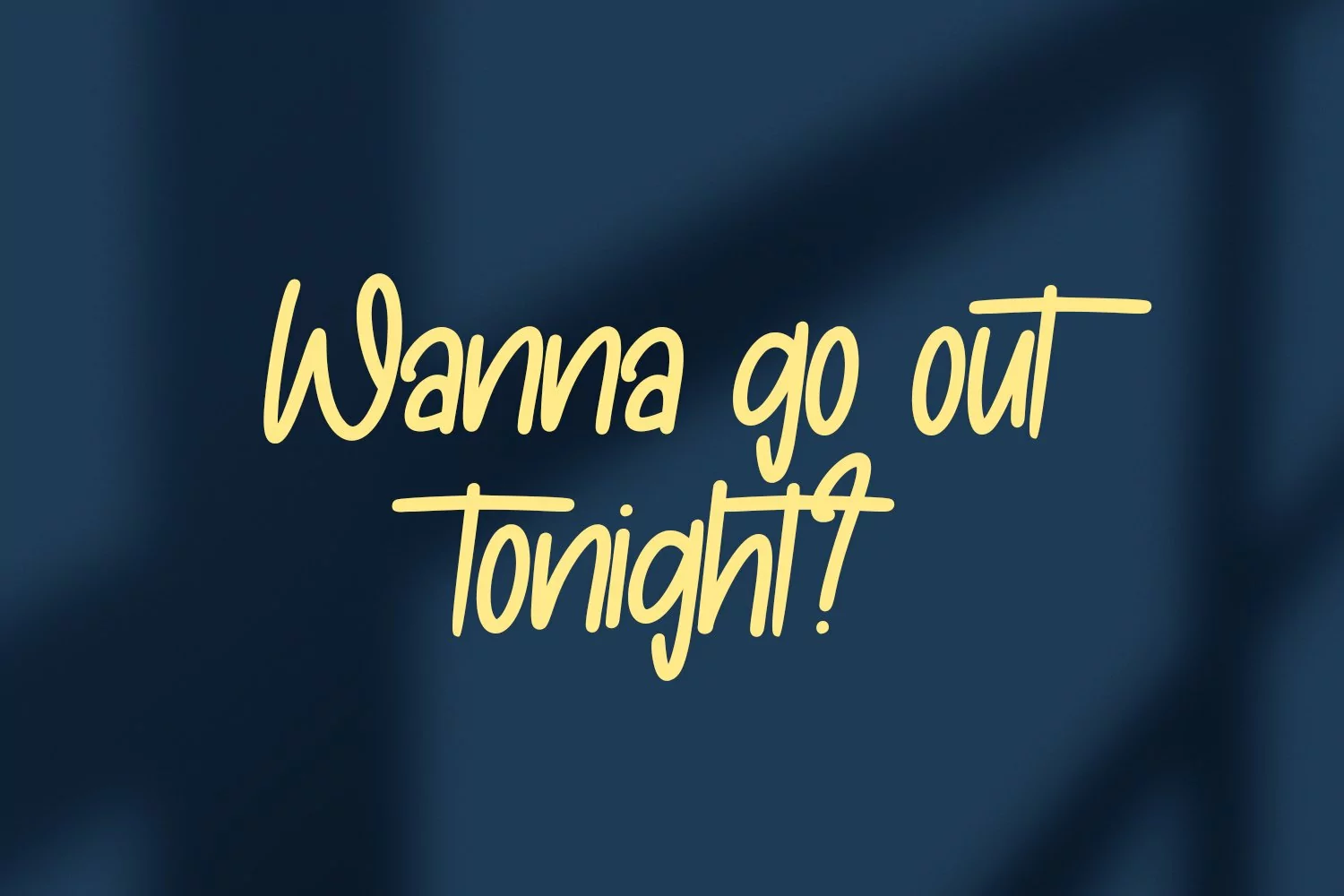
Clockerts is a fancy casual modern script font. With clean mono-line stroke, fun character with a bit of ligatures and alternates. To give you an extra creative work. Clockerts font support multilingual more than 100+ language. This font is good for logo design, Social media, Movie Titles, Books Titles, a short text even a long text letter and good for your secondary text font with sans or serif. Make a stunning work with Clockerts font.